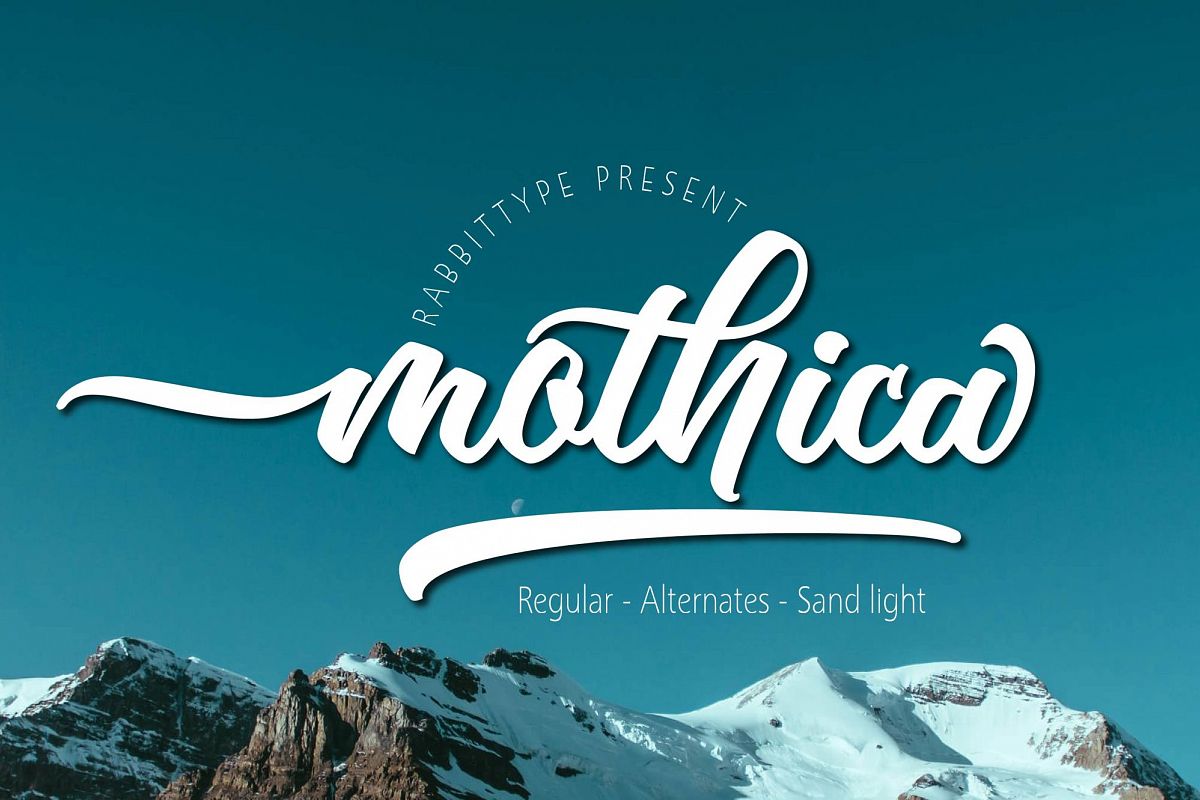
Mothica Script
hi Friends......Mothica Script is a beautiful Script, It suitable for wedding invitation, greeting cards, T-Shirt, Logo or any design that you create.comes with a complete set of standard characters, Alternates, Punctuation & international glyphsFeatures
• UPPERCASE
• lowercase
• numeral
• punctuation
• international glyphs
• Alternates Glyphs